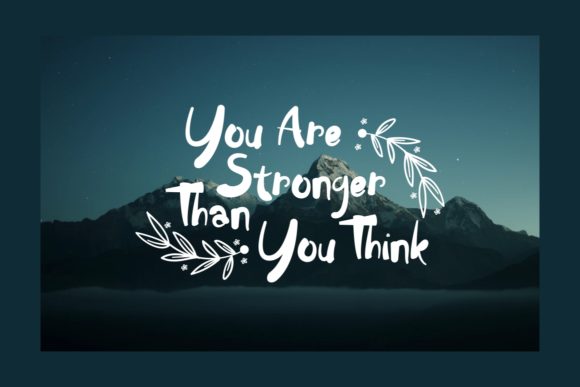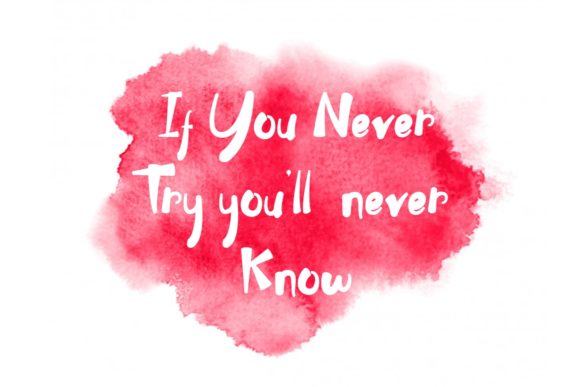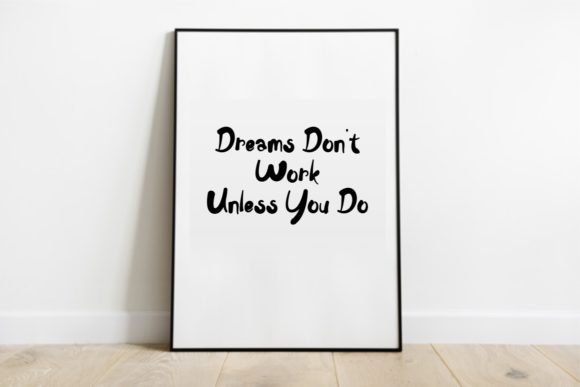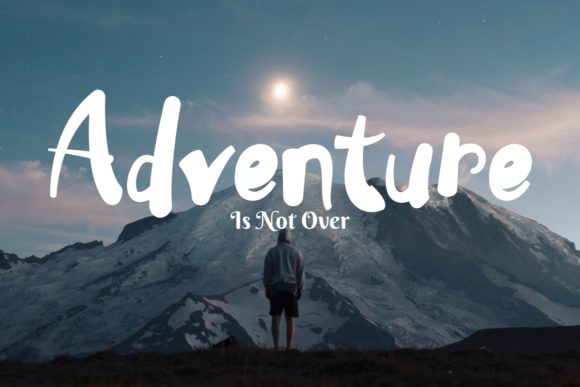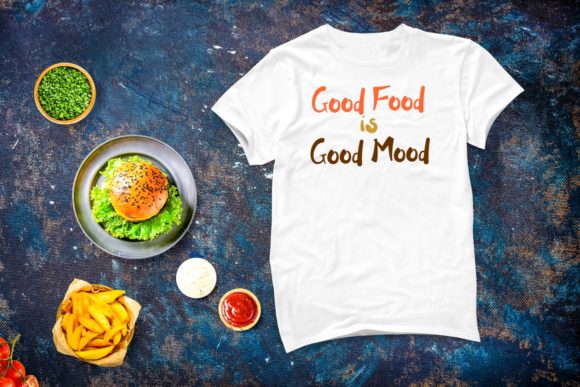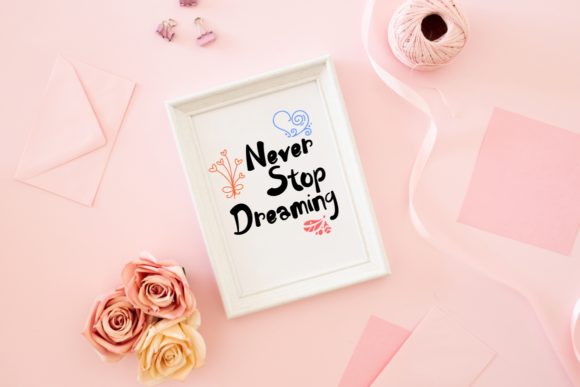
Introduction to Clowney Font
Have you ever found yourself staring at a blank canvas, waiting for the perfect font to bring your creative project to life? For designers, this moment can be both thrilling and intimidating. It’s like searching for the missing puzzle piece that will tie everything together. And then, you stumble upon it – a font that speaks to you, a font that makes your design sing.
Enter the Clowney Font, a masterpiece that combines classic typography with a unique twist. This fantastic display font is not just a pretty face; it’s a valuable resource for designers looking to elevate their work. With its high-quality design and transparent background, Clowney Font is perfect for web, print, and even moving images.
What sets Clowney Font apart is its versatility. Whether you’re working on a large-scale project or a small one, this font is sure to deliver. And the best part? It’s available for free download, making it an essential design resource for any creative project. Get ready to unleash your creativity with the Clowney Font.
Key Features of Clowney Font
- Unique Hand-Drawn Design: The Clowney Font features a distinctive hand-drawn style, making it perfect for creative projects that require a touch of whimsy and personality.
- Transparent Background: The Clowney Font includes a transparent background option, allowing you to easily integrate it into your designs and maintain a seamless look.
- Multi-Lingual Support: The Clowney Font supports a wide range of languages, including Latin, Cyrillic, and Greek alphabets, making it a versatile choice for various design projects.
Honest Review: Clowney Font
I recently came across the Clowney Font, a free download that caught my attention due to its unique and quirky style. As a designer, I’m always on the lookout for high-quality design resources that can elevate my creative projects.
The Clowney Font is definitely a great addition to any designer’s arsenal. Here are some things that work well: ✨
- Its playful and whimsical feel makes it perfect for projects that require a touch of humor and personality.
- The font is highly customizable, allowing users to adjust the size, color, and style to suit their needs.
- The transparent background option is a great feature, making it easy to layer the font over different backgrounds and images.
However, there are a few limitations to keep in mind: ⚠️
- The font may not be suitable for more formal or professional projects, as its playful nature may not be fitting.
- The free download version may not include all the features and characters available in the paid version.
Overall, I’m impressed with the Clowney Font and would definitely recommend it to designers working on creative projects that require a unique and playful touch.
Clowney Font is a high-quality, free download design resource ideal for creative projects. Its transparent background makes it versatile for various applications.
Experiment with different font sizes, colors, and combinations to achieve the desired effect. Use Clowney Font in conjunction with other design elements to create a unique and captivating visual identity.
Clowney Font is suitable for various creative projects, including social media graphics, blog posts, presentations, and marketing materials. Its transparent background makes it easy to overlay on images or use as a standalone design element.